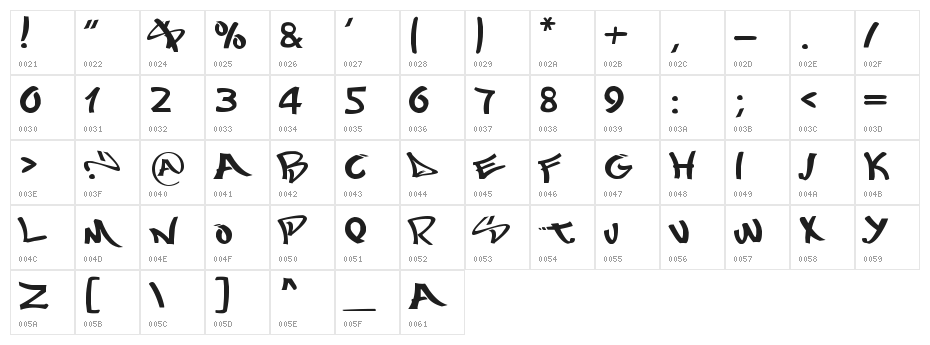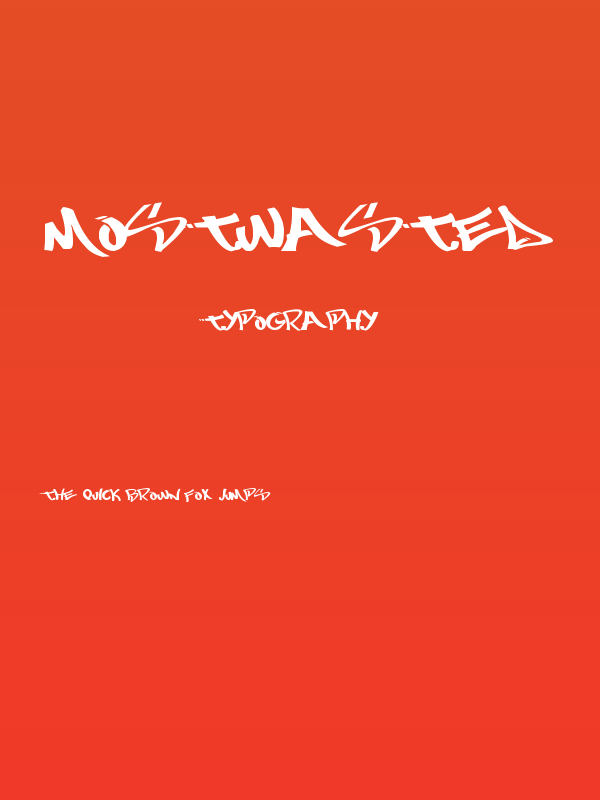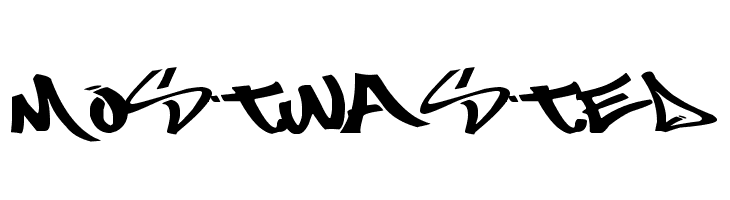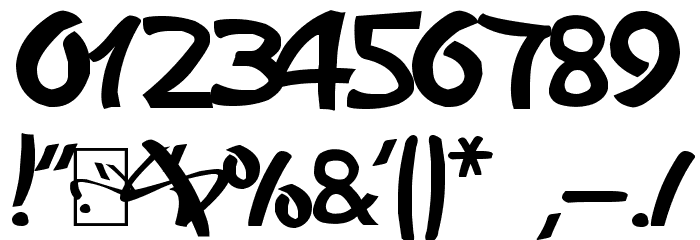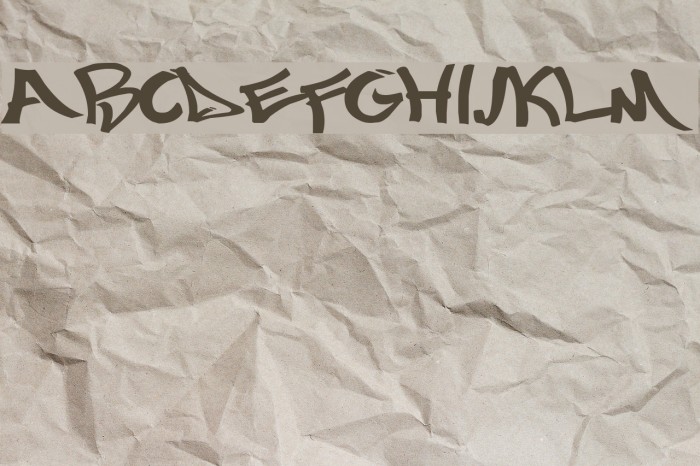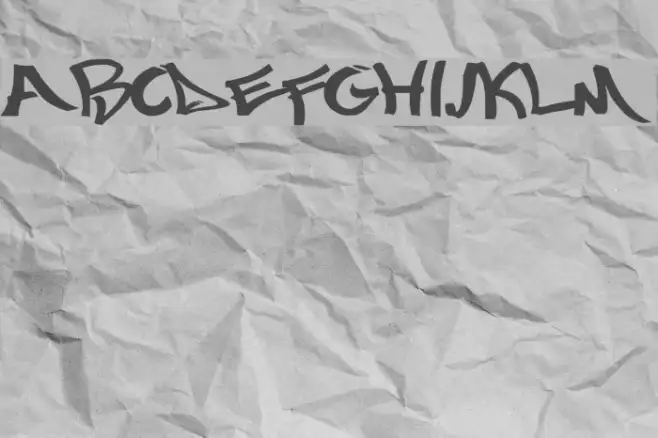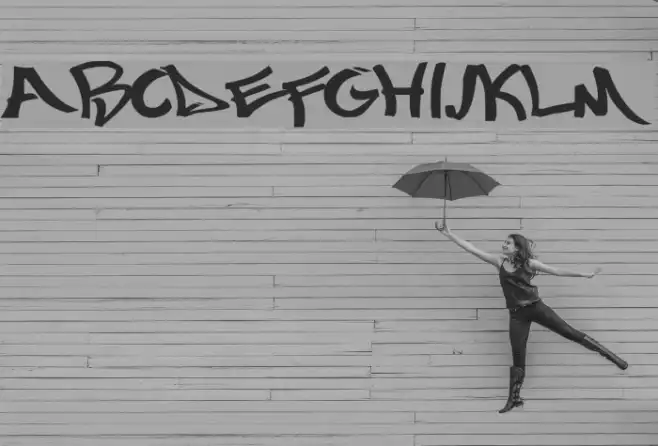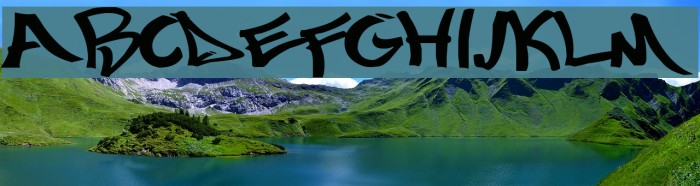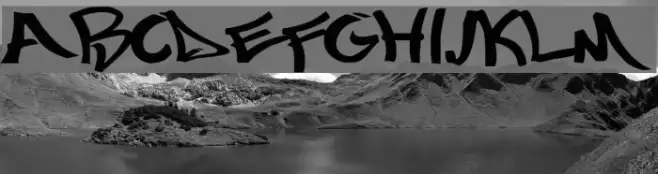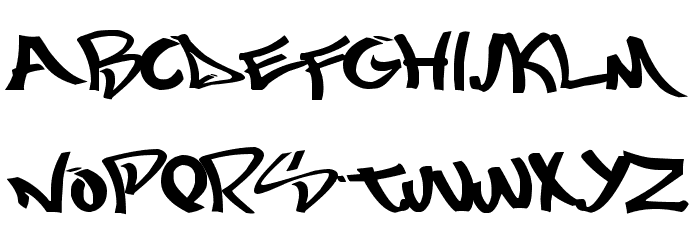
Mostwasted Font
Mostwasted Description
This font exhibits a bold, graffiti-inspired style with exaggerated curves and sharp angles, creating a dynamic and energetic appearance. The uppercase and lowercase letters share a consistent, flowing aesthetic, while the numbers maintain the same boldness and artistic flair. Special characters are creatively integrated, enhancing the font's urban and edgy vibe. The strokes are thick and uniform, contributing to a strong visual impact. This font is ideal for projects that require a bold statement and a modern, street-art feel.
| Use Case | Logos, Headlines, Posters |
| Proposed Projects | Perfect for street art designs, urban-themed posters, music album covers, and edgy branding projects. |